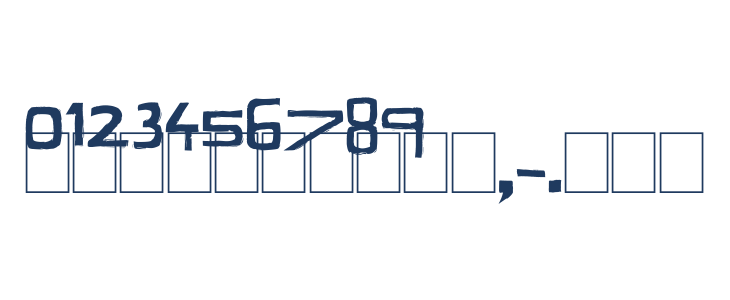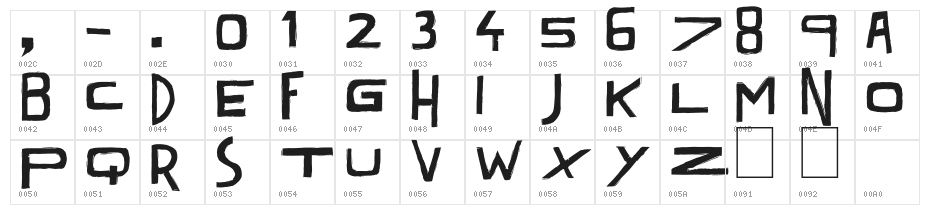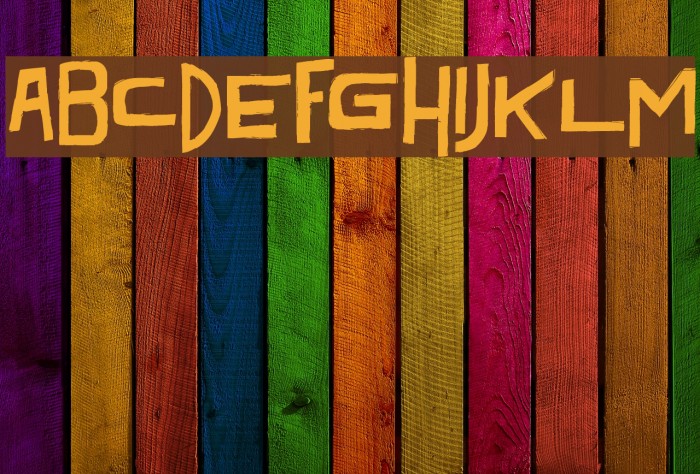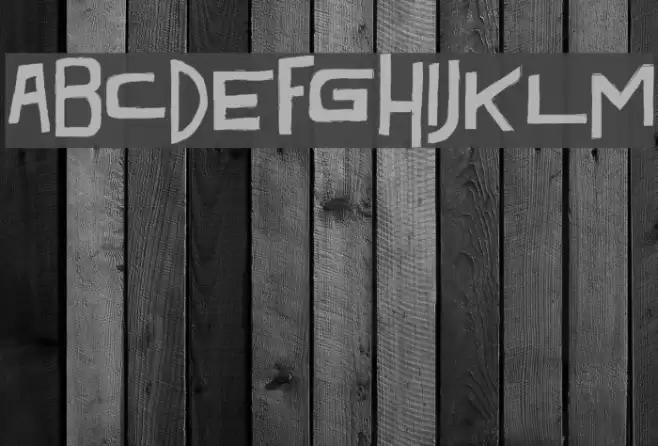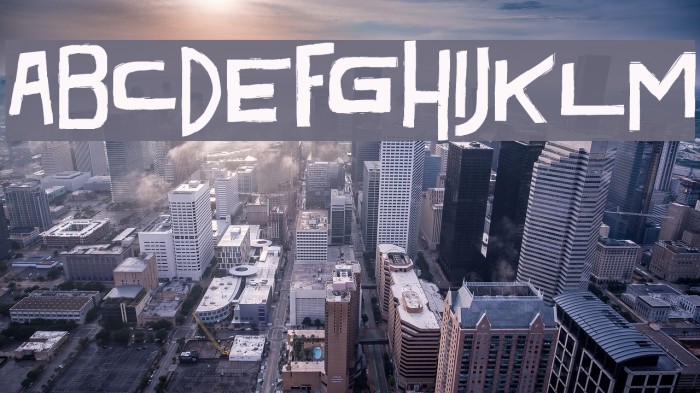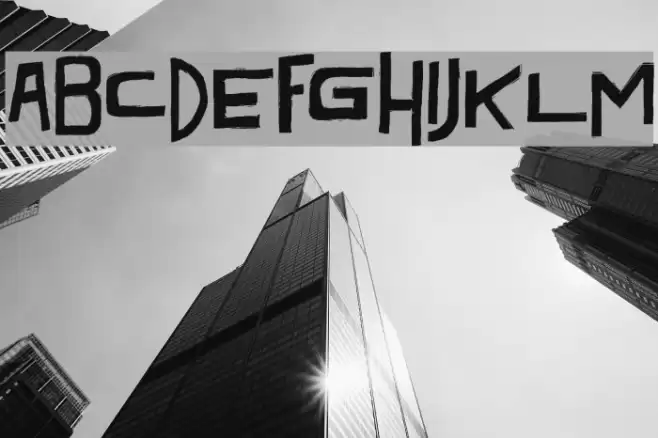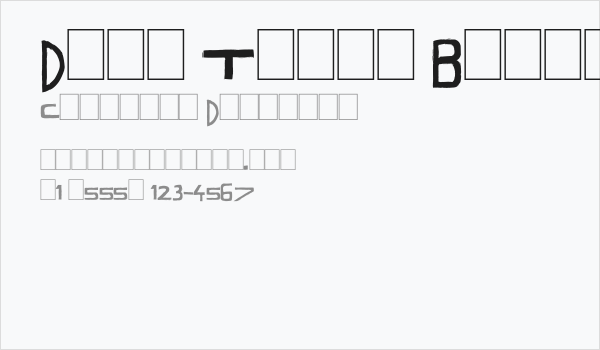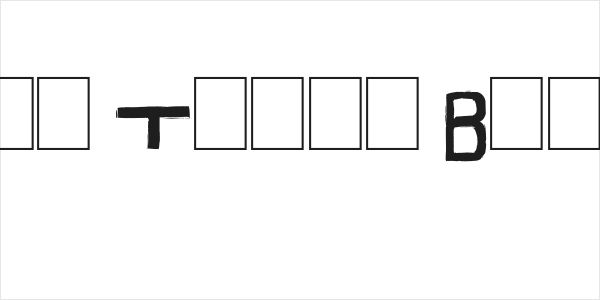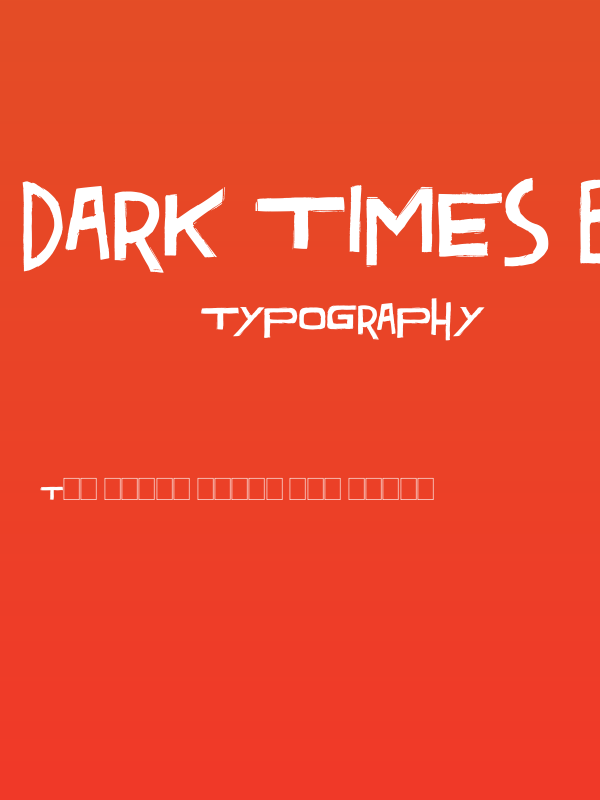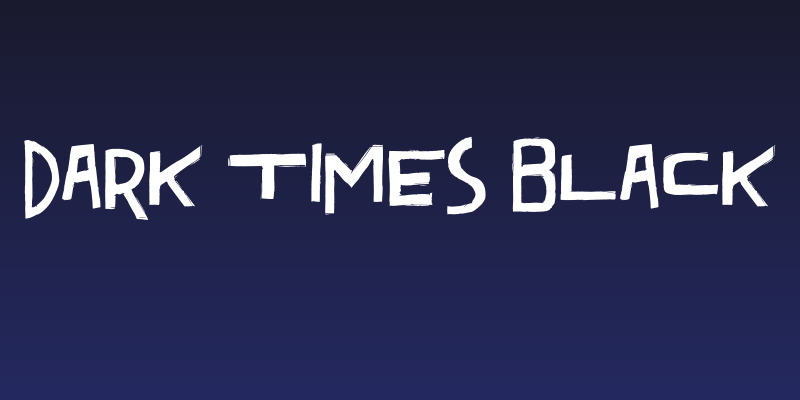
Dark Times Black Font
Dark Times Black Description
This font features a bold and striking design with a hand-drawn, brush-like appearance. The characters are unevenly weighted, giving them a dynamic and energetic feel. The uppercase letters are particularly bold, with sharp angles and a slightly distressed look, adding to the font's edgy and modern aesthetic. The lowercase letters maintain the same boldness, with a consistent style that complements the uppercase set. Numbers and special characters are designed with the same brush-like strokes, ensuring a cohesive look across all glyphs. This font's unique style makes it stand out, perfect for projects that require a strong visual impact.
| Proposed Projects | Ideal for posters, album covers, branding, and any project needing a bold, artistic touch. |